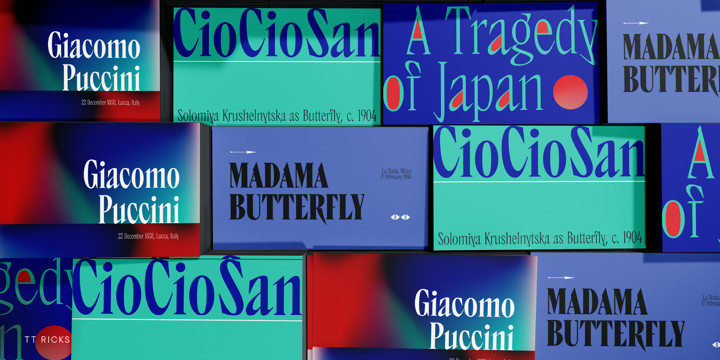
TT Design Collection Font
TT Design Collection FontIntroducing the first collection of trendy designer display fonts under the TypeType Design Collection title.
We’ve been experimenting with flamboyant display projects all year long, be it bright sans serifs, savory serifs, or experimental slabs, and in the end it seemed logical to combine them into one TypeType Design Collection. By purchasing our collection, you immediately get access to a bunch of different design fonts, so you can choose a font with a fitting character for any project or task.
The main goal of our collection is to give you the widest possible palette of vibrant font tools for use in logos, printing, branding, packaging design, medium and large lettering on the web. The list is endless, but we are sure that due to the visual variety, you will definitely find the right font for any project.
The TypeType Design Collection is a growing collection, and in 2022 we plan to significantly expand and supplement it.